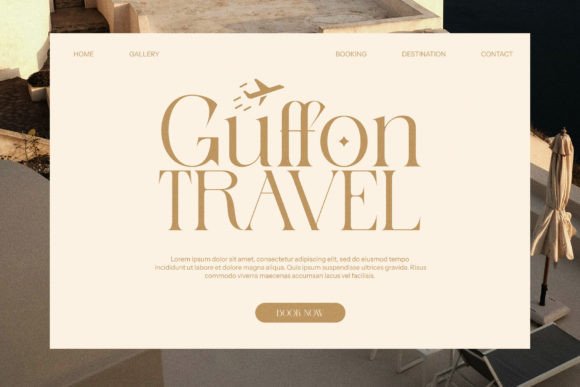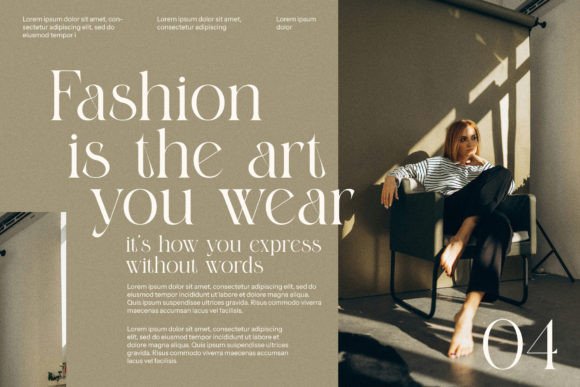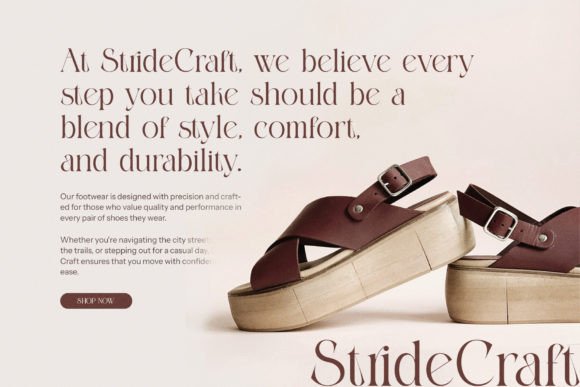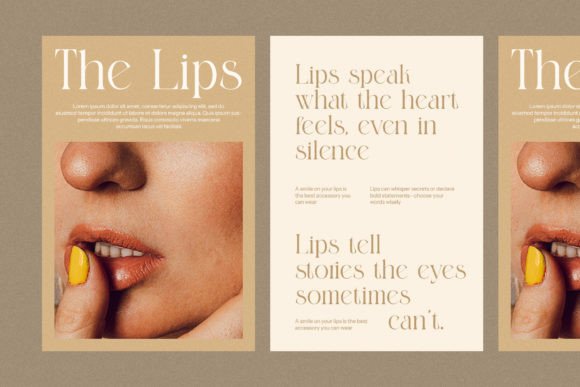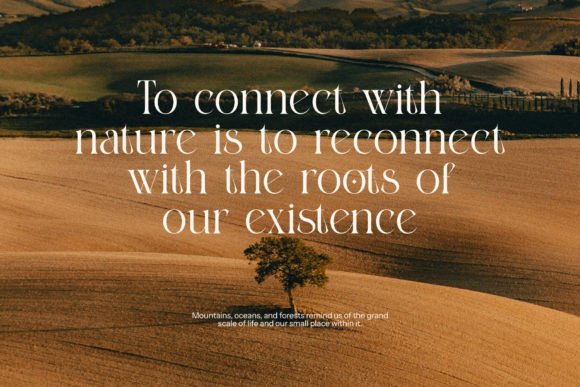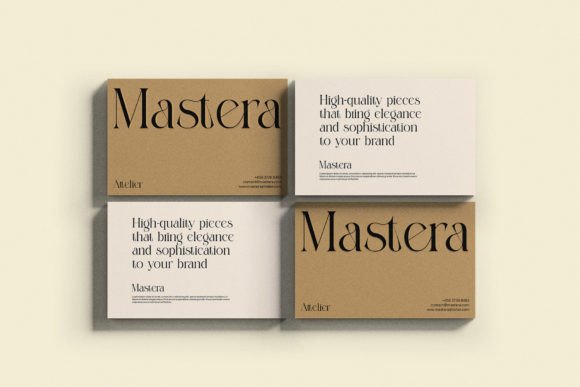
Introduction to Gotam Font
Remember that moment when you’re working on a creative project, and you’re stuck on finding the perfect font to match your vision? The search for the ideal typography can be a daunting task, especially when you’re aiming for a sophisticated and professional look. But what if I told you there’s a font that can elevate your design to the next level?
Enter the Gotam Font, a stunning serif font that combines classic elegance with a modern twist. This high-quality font is a valuable resource for designers, offering a sleek and stylish look that’s perfect for logos, headlines, and branding. With its clean lines and transparent background, the Gotam Font is a must-have for any creative project that demands a touch of sophistication.
Key Features of Gotam Font
- Perfect for designers seeking a unique and stylish font for their projects
Honest Review: Gotam Font
As a designer, I’m always on the lookout for high-quality design resources to elevate my creative projects. Recently, I stumbled upon the Gotam Font, and I’m excited to share my honest review with you.
Some limitations I’ve encountered: ⚠️ The font selection is limited, and I wish there were more options to choose from. ⚠️ The font may not be suitable for all types of projects, as it’s more suited for modern and minimalist designs.
Overall, I’m impressed with the Gotam Font’s potential to enhance my creative projects. Its high quality and flexibility make it a valuable design resource. While it may not be perfect, I appreciate its transparency and customization options. If you’re looking for a free font to elevate your designs, the Gotam Font is definitely worth checking out.
How to Use Gotam Font
The Gotam Font is a high-quality, free download design resource perfect for any creative project. Its unique style and versatility make it an ideal choice for designers looking for a fresh and modern look.
Tips for Getting the Most Out of Gotam Font
To get the most out of the Gotam Font, try using it with a transparent background to create a unique and eye-catching design. You can also experiment with different font sizes, colors, and styles to find the perfect combination for your creative project.
The Gotam Font is perfect for a variety of design projects, including:
Brochures and flyers
Business cards and letterheads
Website design and development
Social media graphics and posts